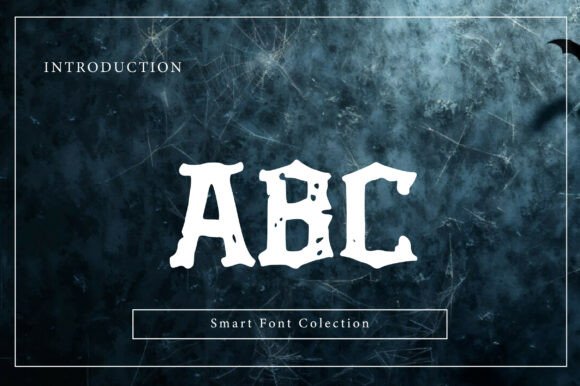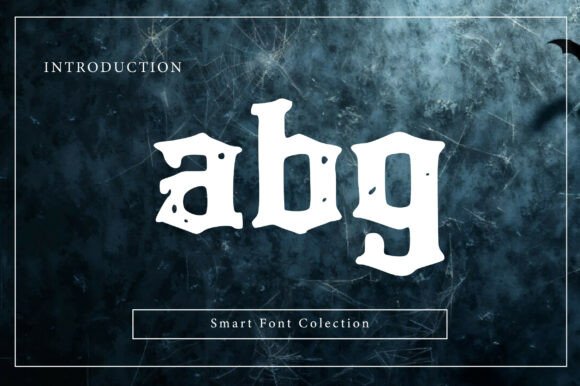
The Timeless Elegance of Gothic Font: A Guide for Designers and Crafters
The Gothic font is a bold and classic blackletter-style display font that has been a staple of medieval and old English typography for centuries. Characterized by its sharp edges, strong vertical strokes, and authentic gothic character, this font is perfect for designers and crafters looking to add a touch of drama and history to their projects.
What is a Gothic Font?
A Gothic font is a type of blackletter-style font that originated in the Middle Ages. It is characterized by its distinctive letterforms, which feature sharp edges, pointed serifs, and strong vertical strokes. Gothic fonts were originally used for illuminated manuscripts, and later became popular for use in printing and typography.
Features of Gothic Font
The Gothic font is known for its bold and dramatic appearance, making it perfect for use in a variety of design projects. Some of the key features of Gothic font include:
- Sharp Edges: Gothic fonts feature sharp, pointed edges that give them a distinctive and dramatic look.
- Strong Vertical Strokes: The vertical strokes in Gothic fonts are strong and bold, giving them a sense of power and elegance.
- Authentic Gothic Character: Gothic fonts are inspired by medieval and old English typography, and feature authentic gothic character that evokes a sense of history and tradition.
Uses of Gothic Font
The Gothic font is a versatile font that can be used in a variety of design projects, including:
- Logos and Branding: Gothic fonts are perfect for logos and branding projects that require a bold and dramatic look.
- Posters and Flyers: Gothic fonts are great for use in posters and flyers, where they can add a touch of drama and elegance.
- Tattoos and Body Art: Gothic fonts are popular for use in tattoos and body art, where they can add a touch of edginess and sophistication.
- Album Covers and Music Design: Gothic fonts are often used in album covers and music design, where they can add a touch of drama and elegance.
- Book Titles and Publishing: Gothic fonts are perfect for use in book titles and publishing, where they can add a touch of classic elegance.
- Packaging and Product Design: Gothic fonts can be used in packaging and product design, where they can add a touch of drama and sophistication.
- Dark-Themed Designs: Gothic fonts are perfect for use in dark-themed designs, such as Halloween designs, horror movie posters, and Gothic-inspired art.
Benefits of Using Gothic Font
The Gothic font offers a number of benefits for designers and crafters, including:
- Powerful Historical Look: Gothic fonts deliver a powerful historical look that evokes a sense of tradition and elegance.
- Dramatic Appearance: Gothic fonts have a dramatic appearance that can add a touch of sophistication and elegance to any design project.
- Clean Readable Structure: Despite their bold and dramatic appearance, Gothic fonts have a clean readable structure that makes them easy to read and understand.
Tips for Using Gothic Font
Here are a few tips for using Gothic font in your design projects:
- Use it Sparingly: Gothic fonts can be bold and dramatic, so use them sparingly to avoid overwhelming your design.
- Pair it with Simple Fonts: Gothic fonts look best when paired with simple fonts that provide a clean and elegant contrast.
- Experiment with Different Sizes: Gothic fonts can be used in a variety of sizes, from large headlines to smaller body text.
The Gothic font is a timeless and elegant font that is perfect for designers and crafters looking to add a touch of drama and history to their projects. With its sharp edges, strong vertical strokes, and authentic gothic character, this font is sure to make a statement in any design project. Whether you’re creating a logo, poster, tattoo design, or album cover, the Gothic font is a versatile and powerful choice that is sure to deliver a powerful historical look.